In the design world, the term “classic” is often synonymous with something timeless, elegant, and appealing despite evolving visual trends. This characteristic is also evident in the timeless vintage script font, which features artistic letterforms with a distinctive retro touch. This font is not only synonymous with vintage style but also remains relevant for use in a variety of modern design needs.
Every timeless vintage script font has its own visual character that can show various impressions in a design. Some of the fonts present an elegant and gentle feel, while the others look more decorative, classic, or artistic. These character differences make this type of font remain popular because it can be adapted to various visual concepts and design needs.
Through this article, you will get 15 timeless vintage script font recommendations with different visual character and attraction. The font picks below can be your inspiration in creating a more aesthetic, characterized, and memorable design.
Sunbloom is a timeless vintage script font that offers a classic retro nuance through its artistic brush style. The letter character can give a warm, expressive, and authentic feel to a design. Furthermore, the dynamic curvature of the letters makes Sunbloom stand out without losing its elegance. This font is suitable for vintage-themed designs, branding, posters, and even product packaging with a modern, classic touch.
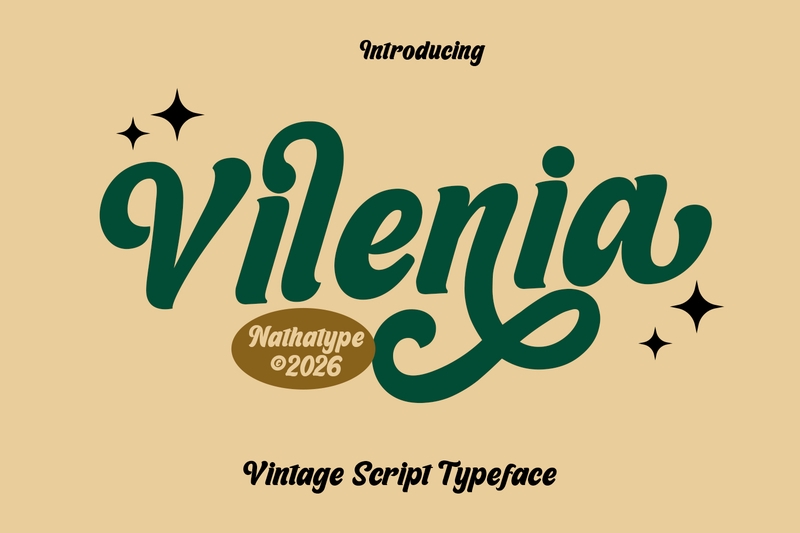
Vilenia conveys a classic retro feel through its bold, soft, and characterful script typeface. Its dynamic curves create an instantly eye-catching visual appearance. Decorative swash details also enhance its memorable and distinctive look. Vilenia is ideal for packaging designs, product labels, typographic quotes, and vintage and classic promotional media displays.
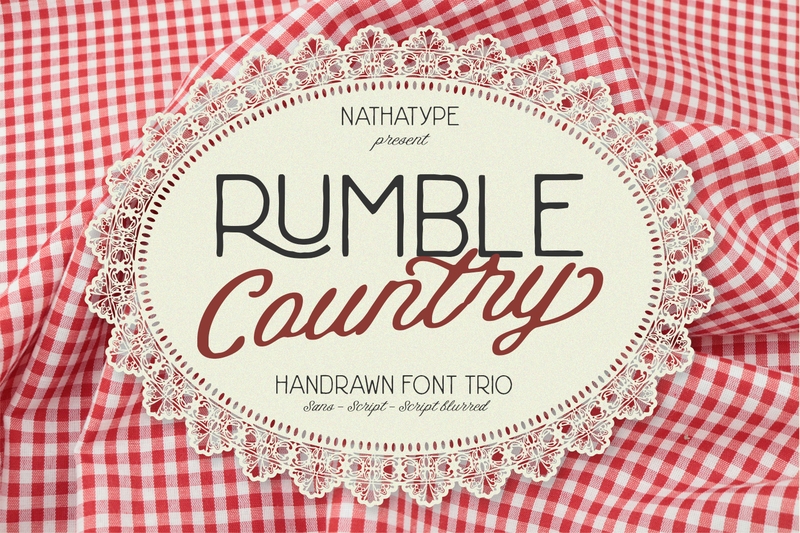
Rumble Country features a timeless vintage script font with a warm, natural, and classic feel. Its handwritten letterforms create an authentic and pleasing feel. The combination of script style and hand-drawn elements makes this font look unique, organic, and full of character. The rustic nuances in the letter details also create a distinctive retro feel, making it ideal for product label designs, packaging, signage, and vintage country visual concepts.
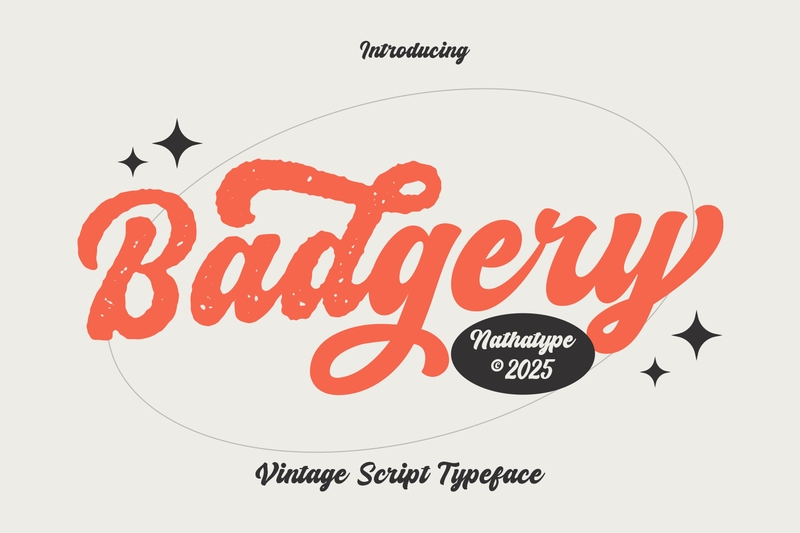
Badgery conveys a strong classic feel through its bold script letterforms, featuring distinctive and authentic textured details. The brushed character creates an expressive yet dynamic feel, making the design more lively. Furthermore, the balanced letter curves make Badgery pleasing to the eye despite its bold visual style. This font is often used to create retro, old-school, and vintage-themed designs that exude character.
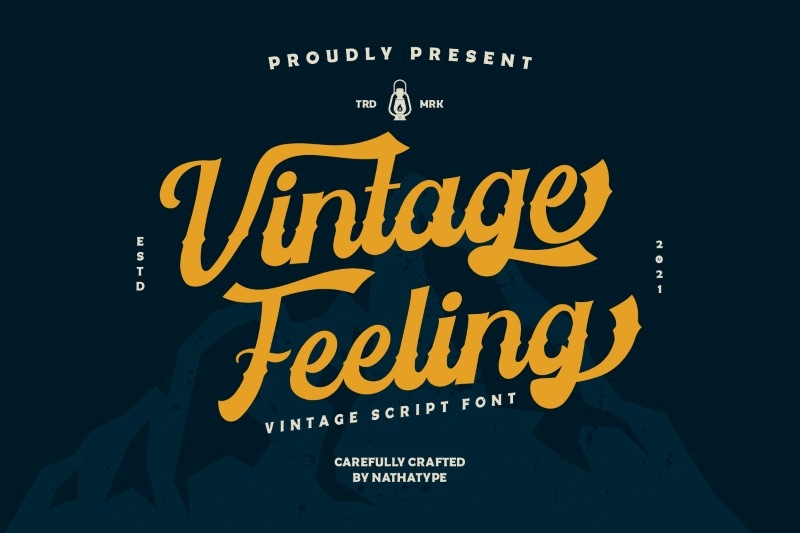
Vintage Feeling’s visual character creates an eye-catching impression through its bold, elegant script letterforms. Its dynamic curves make this font both expressive and memorable. Furthermore, the distinctive swash details provide an authentic old-school touch without looking outdated. This combination of elements enables Vintage Feelings to create a warm, characterful, and timeless vintage design look.
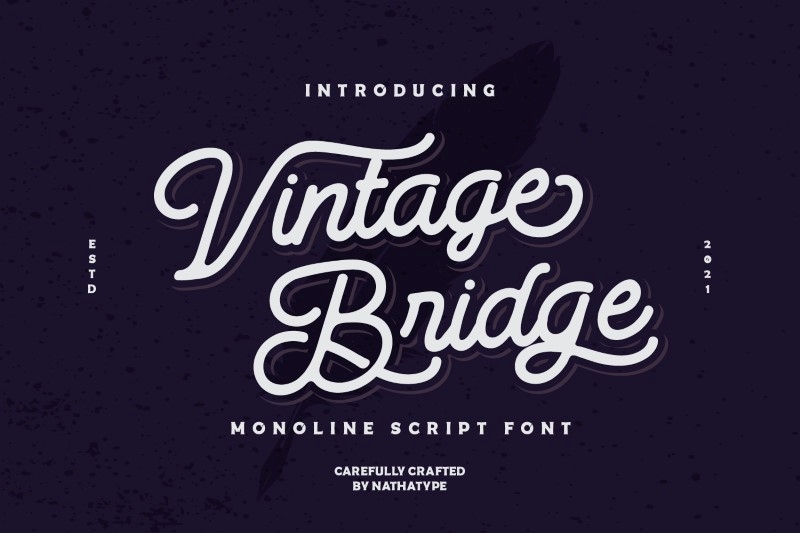
With its decorative script style, Vintage Bridge is a timeless vintage script font that displays a classic touch with a strong visual character. Its bold letterforms and subtle curve details make this font look more expressive and comfortable to look at. Furthermore, the balanced letter composition creates a more aesthetic and classy visual appearance. This combination allows Vintage Bridge to present a warm, attractive, and timeless vintage design.
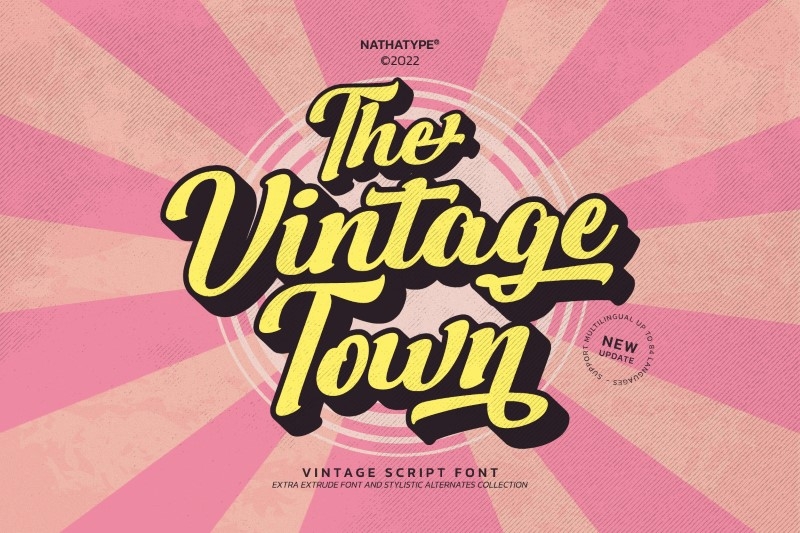
The Vintage Town is known as a timeless vintage script font that evokes a classic retro feel with a touch of nostalgia. It features bold, flowing script letters combined with curves. The dynamic lettering gives The Vintage Town an iconic appearance and a strong vintage feel, making it suitable for branding, posters, and classic retro-themed designs.
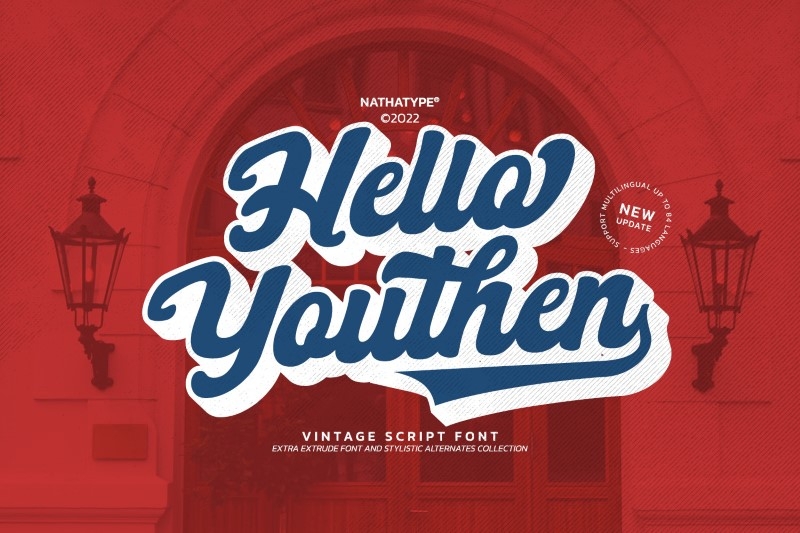
Hello Youthen’s classic retro look makes it look authentic, dynamic, and full of timeless nostalgia. It comes with a thick, flowing script character, combined with soft curves and harmonious lettering connections to create a warm impression. Flexible swash details further reinforce its vintage identity, making Hello Youthen very suitable for branding, logos, posters, and classic retro-themed designs.
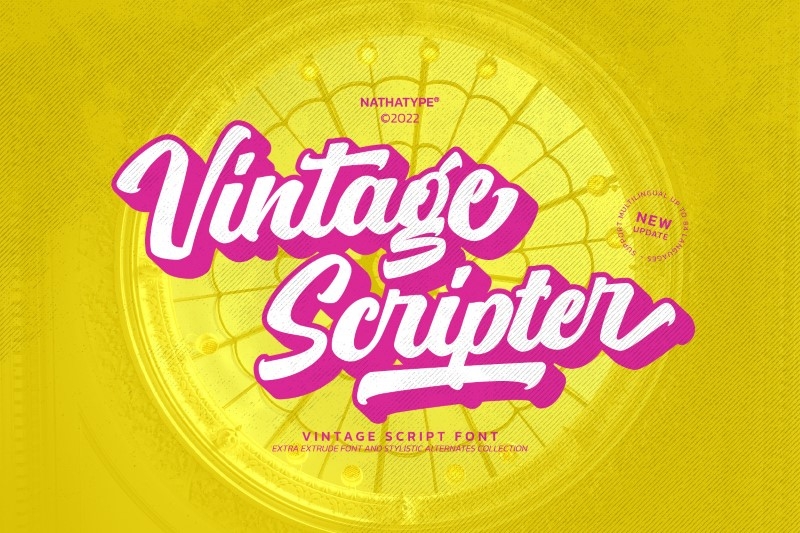
With its dynamic letterforms, Vintage Scripter is a timeless vintage script font that evokes playfulness and nostalgia in a harmonious look. It features a naturally flowing script with flexible curves, creating a lively and balanced visual rhythm. The relaxed lettering, combined with distinctive retro details create a warm, communicative, and authentic look while retaining a strong classic appeal.
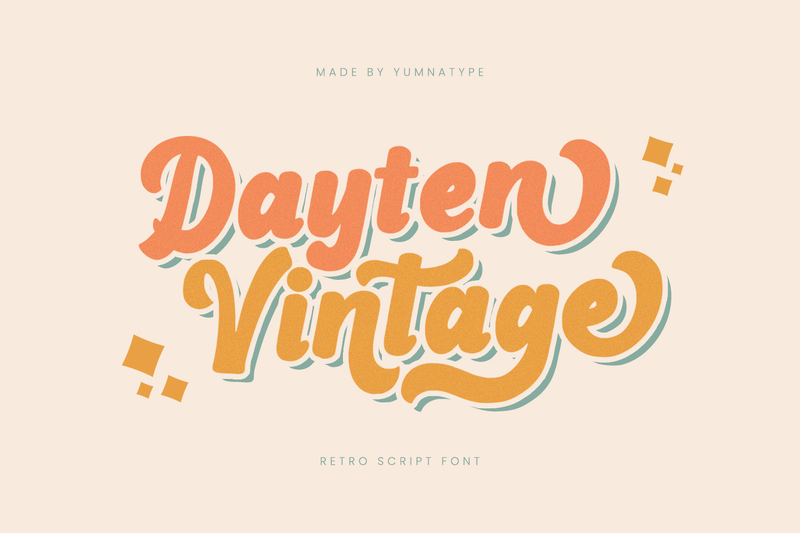
Through the fonts above, you can find various timeless vintage script font inspirations to support your design needs with a unique and memorable classic feel. Discover more interesting font inspirations to help create more creative, distinctive designs that meet evolving visual needs.